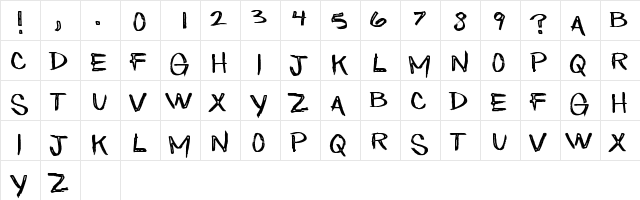
Eatn Cake Regular Font Preview
Eatn Cake Regular
Eatn Cake Regular Font Details
| Foundry | Font Monger |
| Designer | Chris Vile |
Design Context for Eatn Cake Typeface
Eatn Cake is a composed and adaptable typeface that performs quietly and consistently across a wide range of design contexts.